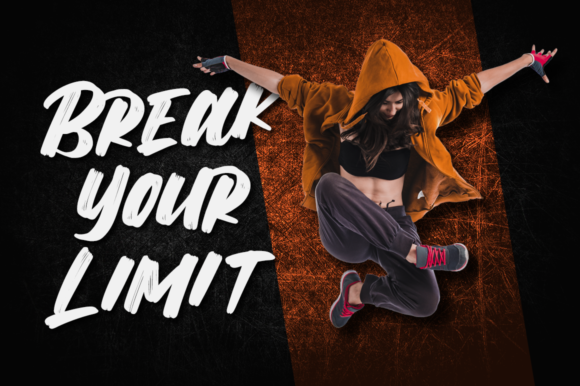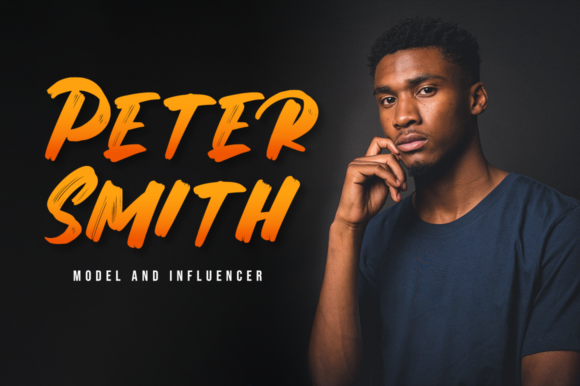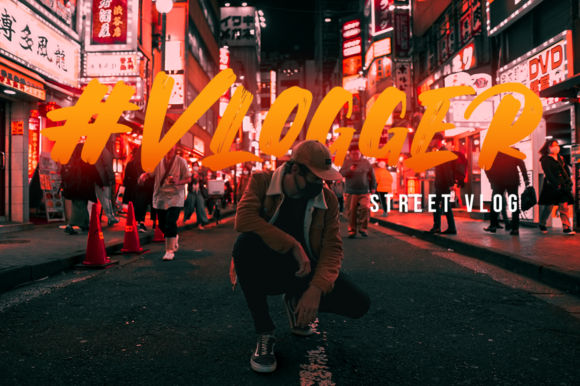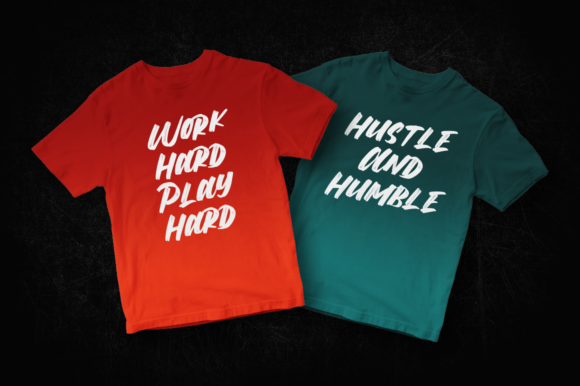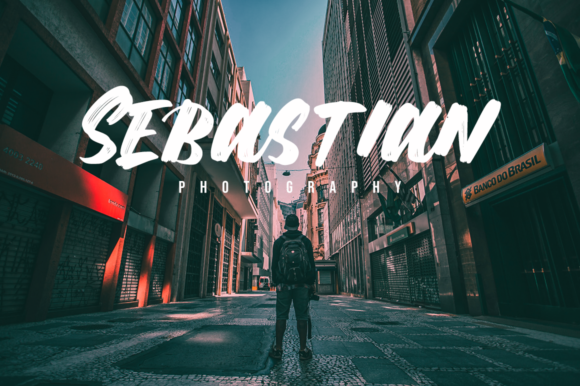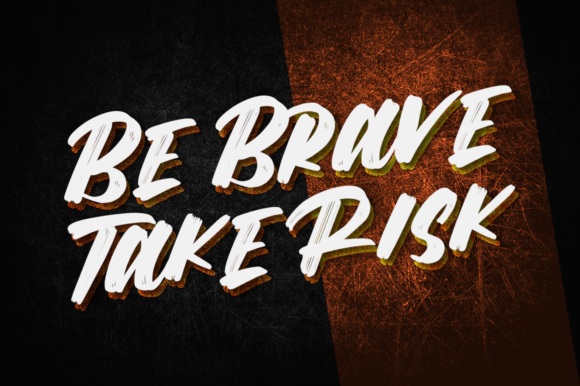
Introduction to Mega Brush Font
Mega Brush is is a unique and interesting display font.
A little bit quirky, this font looks incredibly adept on a wide variety of contexts .